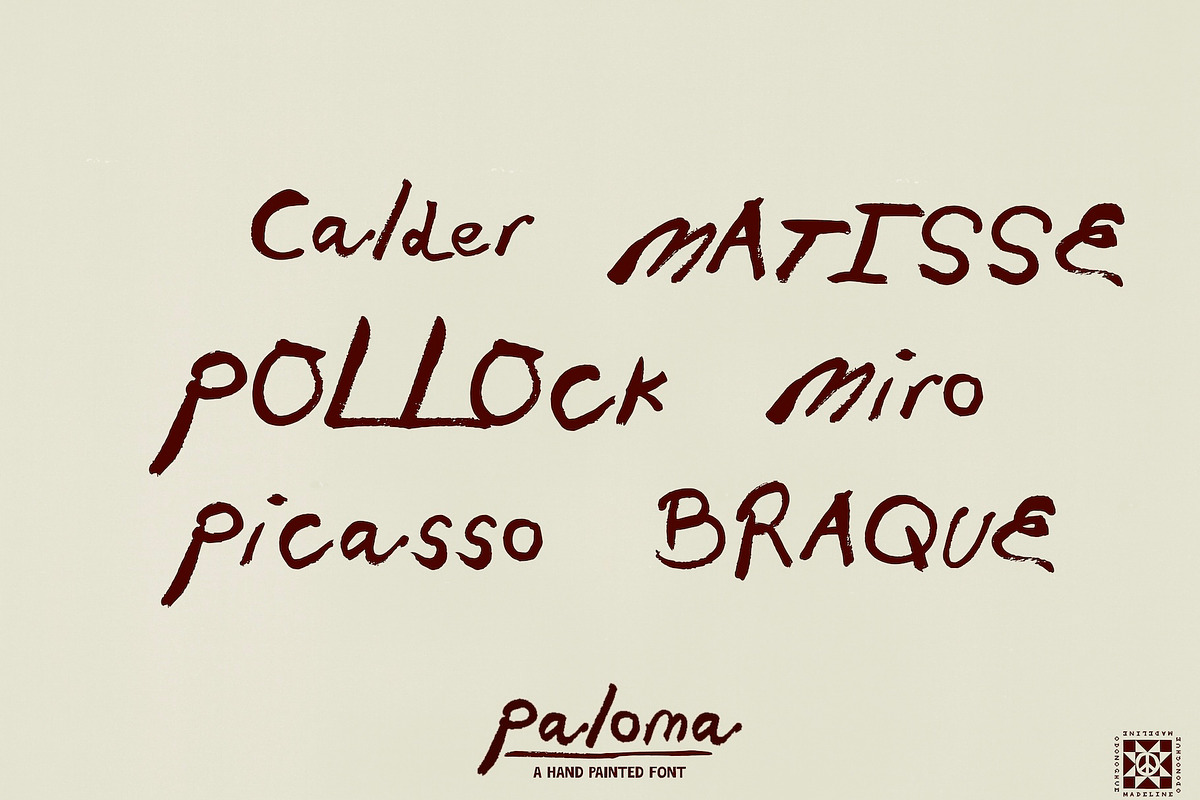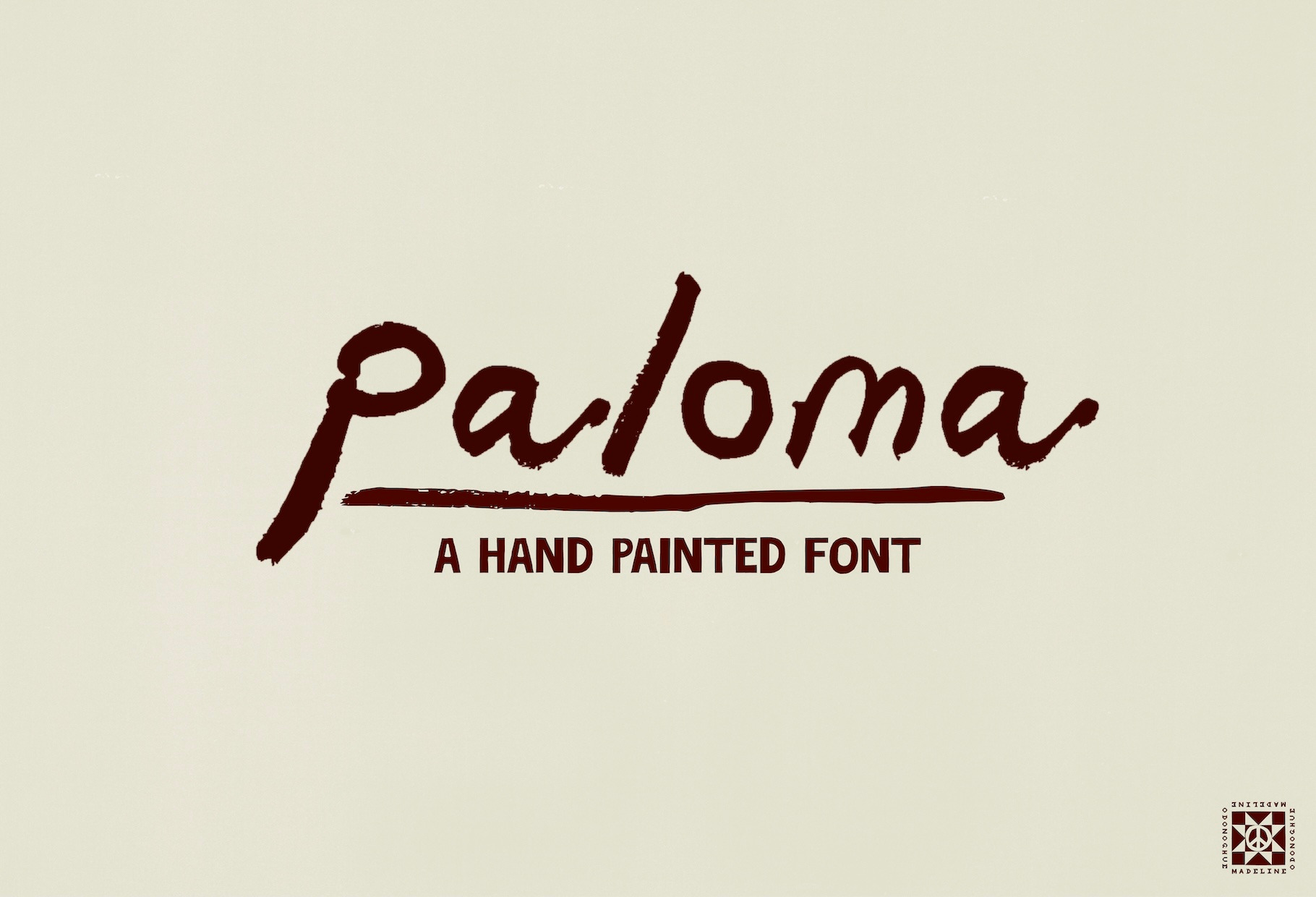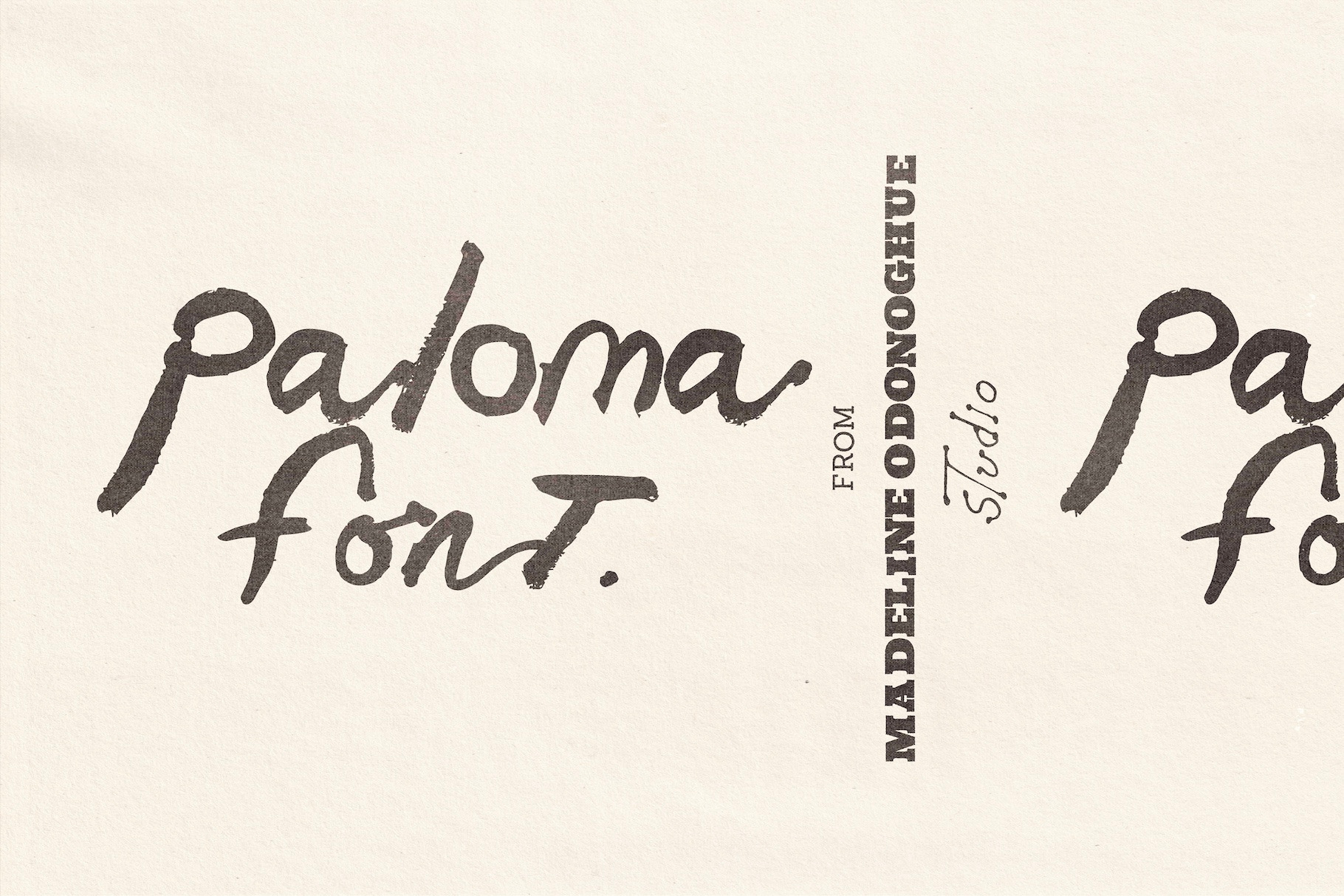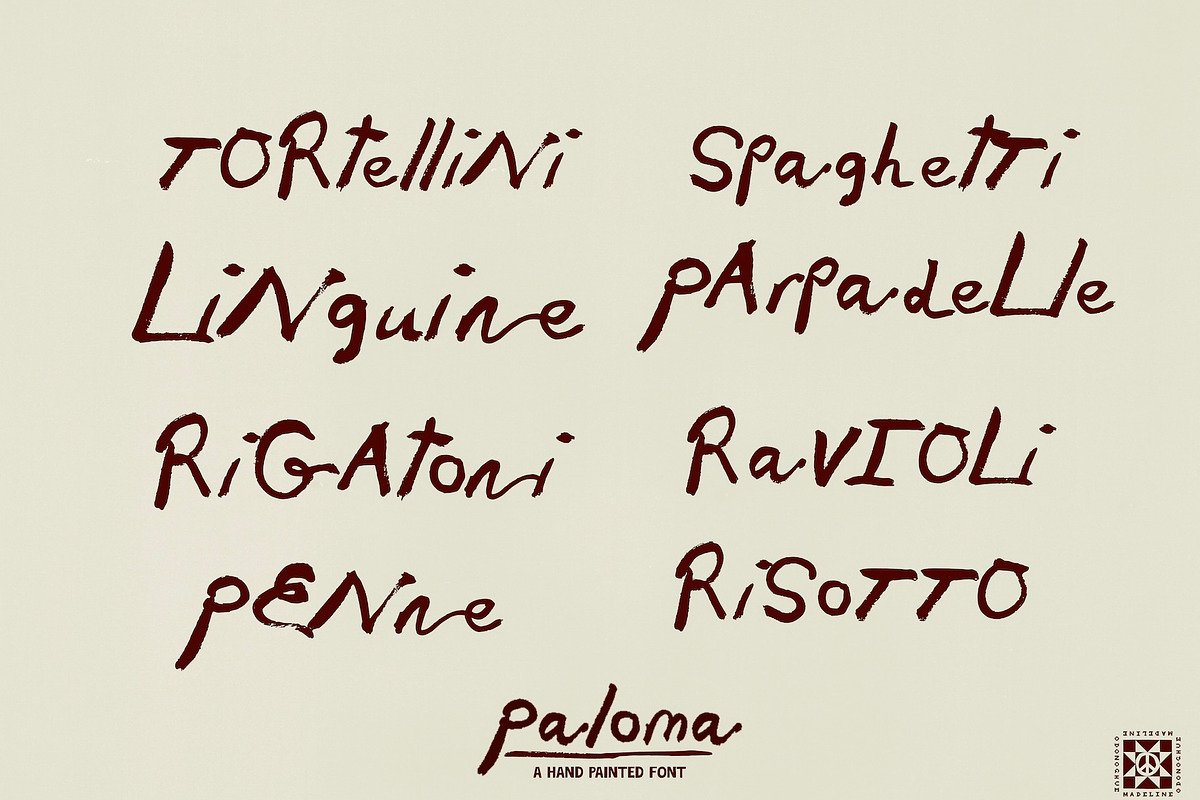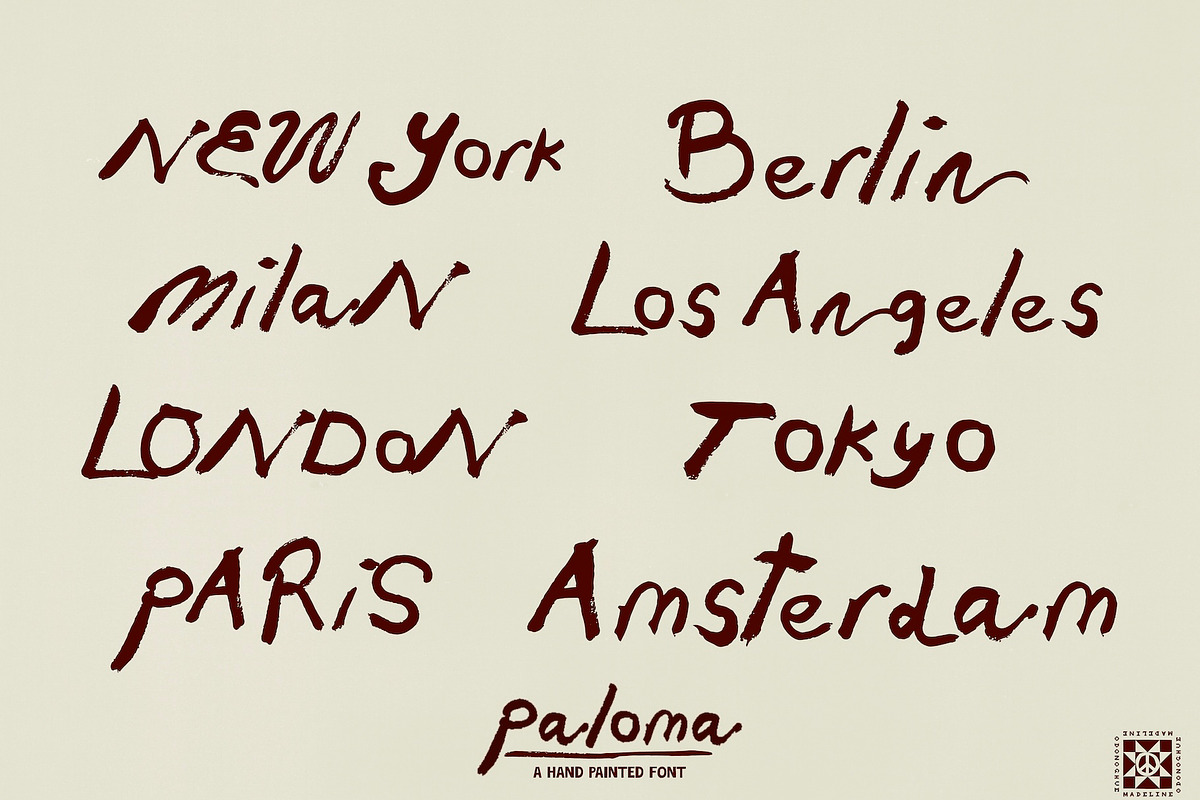
Paloma Hand Painted Font
Paloma™ is a hand-painted display font inspired by artist signatures, expressive brush lettering, handwritten notes, and the spontaneous marks found in sketchbooks, paintings, and creative studios.
Made from real painted letterforms, Paloma celebrates the beauty of imperfection. Loose brushstrokes, irregular edges, natural movement, and subtle variations in each character give the typeface an authentic, painterly quality that digital lettering often lacks.
It feels like a signature on a canvas, a handwritten note from an artist, or a few confident strokes of paint — personal, instinctive, and full of life.
A little imperfect. Entirely intentional.
Paloma brings warmth, personality, and artistic expression to contemporary design. Its distinctive hand-painted character makes it especially suited to projects that want to feel creative, considered, and unmistakably human.
Art galleries, exhibitions & cultural institutions
Artist identities, portfolios & creative studios
Editorial design, magazines & book covers
Independent brands & boutique packaging
Restaurant menus, cafés & hospitality
Invitations, stationery & personal correspondence
Handmade goods, craft brands & lifestyle products
Website headings, social media & creative campaigns
The Details
Paloma is designed to retain the character of its original painted lettering. Its organic edges, irregular shapes, and expressive brush marks are an intentional part of the design.
For the best results, Paloma is particularly effective at small to medium display sizes, where its painterly details remain balanced and natural. Extremely large-scale applications, such as oversized signage or banners, may exaggerate the original brush texture.
Made for Creative Expression
Whether you're designing an exhibition identity, an independent publication, a beautiful piece of packaging, or something entirely your own, Paloma adds the expressive quality of lettering made by hand.
Loose. Painterly. Personal. Beautifully imperfect.